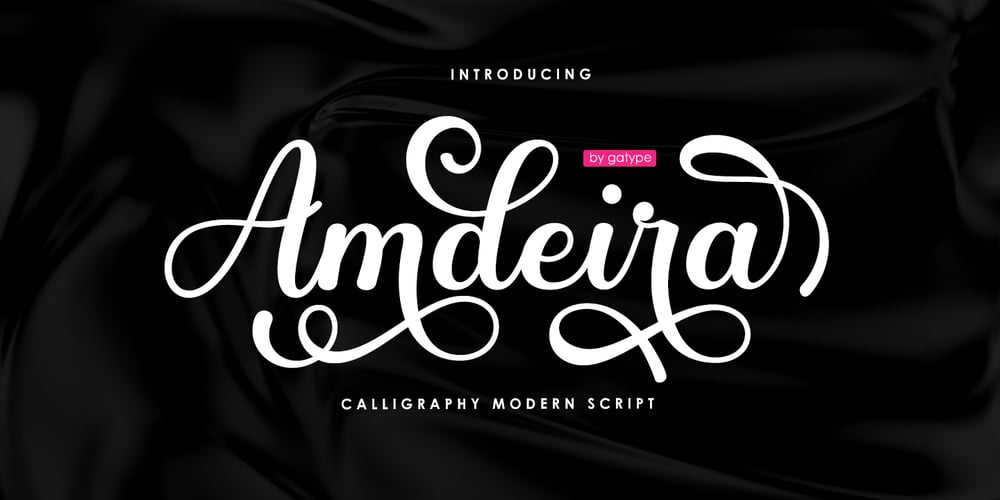
Amdeira Script Font Family was designed by khaidir and published by Gatype. Amdeira Script contains 1 styles and family package options. Amdeira Script is a bold style script font. elegant, simple and slightly vintage look. This font is equipped with open types such as: ligature, Stylistic Sets, Last alternative. In addition, this font also supports multiple languages.You can mix and match your best combination. And besides that, this font is suitable for your design needs such as: poster design, magazines, logos, branding, packaging and many more.To enable the OpenType Stylistic alternatives, you need a program that supports OpenType features such as Adobe Illustrator CS, Adobe Photoshop CC (With Glyphs Panel), Adobe Indesign & CorelDraw X6-X7, Microsoft Word 2010 or later versions.Encoded PUAs are also supported. Access font characters compatible with Silhouette Studio, Cricut Design Space. Simply copy and paste alternate characters using Character Map (Windows), Nexus Font (Windows), Font Book (Mac) or a software program such as PopChar (for Windows and Mac)